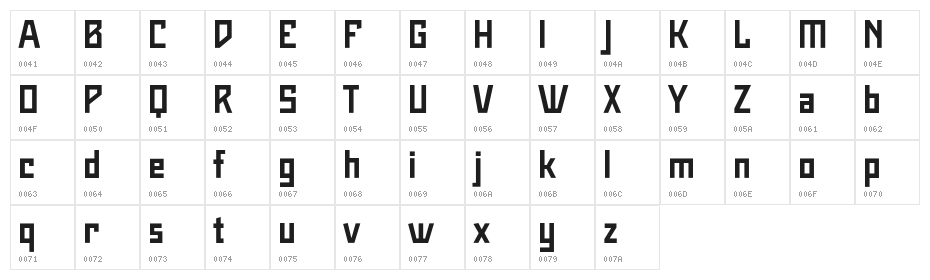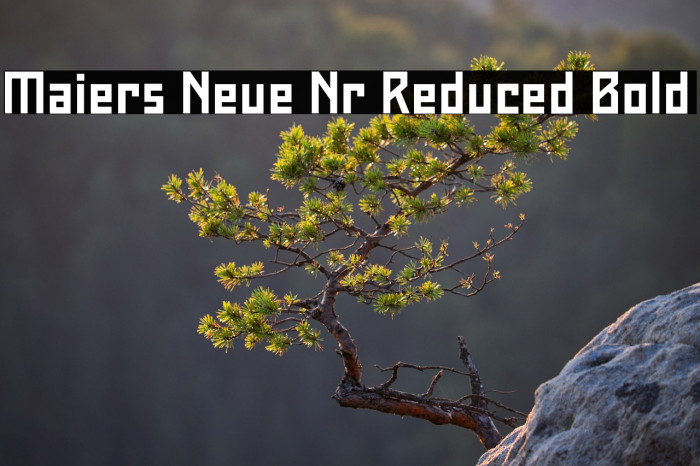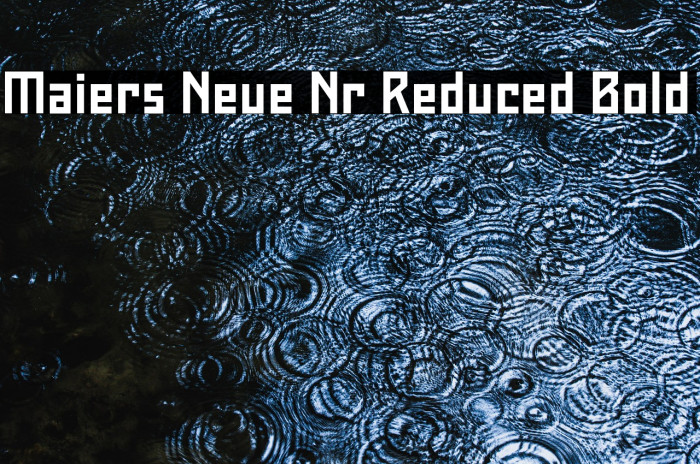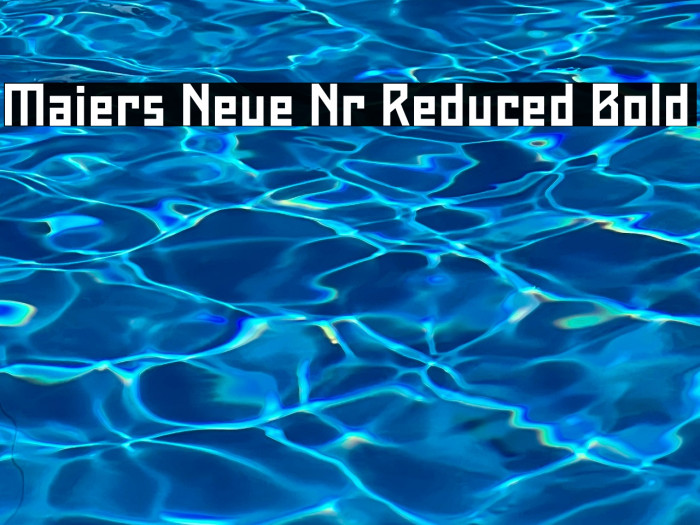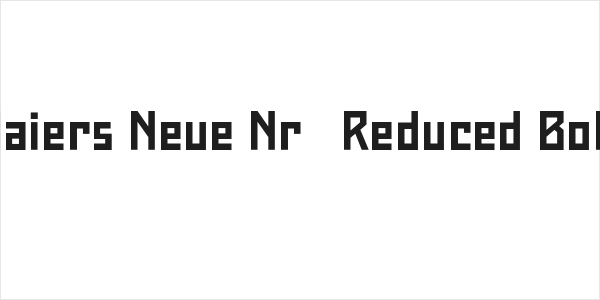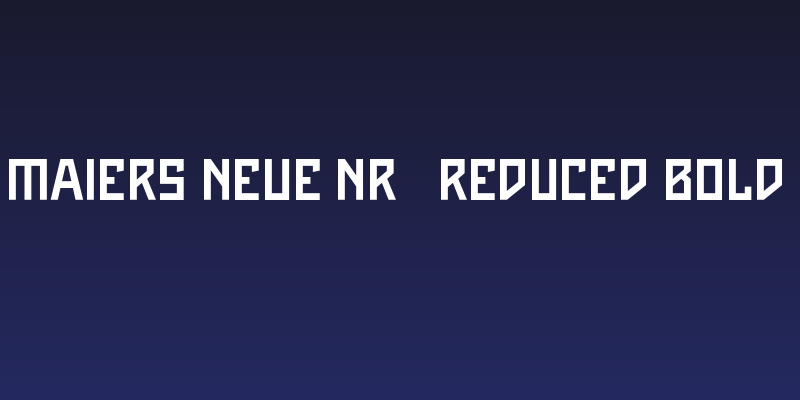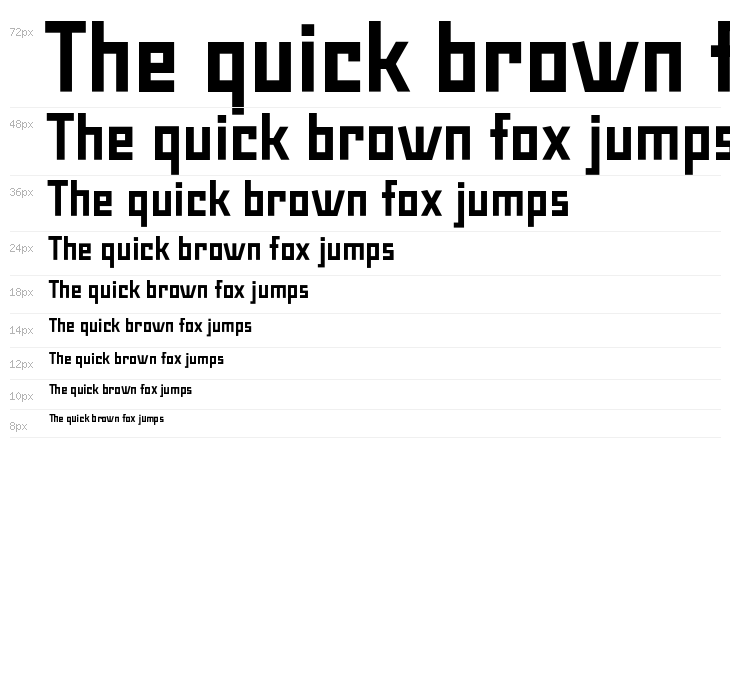
Maiers Neue Nr.8 Reduced Bold Font
Maiers Neue Nr.8 Reduced Bold Description
This font features a bold and geometric design with strong, angular lines and a modern aesthetic. The characters are constructed with a uniform stroke width, giving it a robust and impactful appearance. The uppercase letters are particularly striking, with sharp edges and a block-like structure that conveys strength and stability. The lowercase letters maintain the same geometric style, ensuring consistency throughout the typeface. The numerals and special characters are designed to match the bold and assertive nature of the alphabet, making this font suitable for attention-grabbing headlines and displays. Its clean and structured form makes it versatile for various design applications.